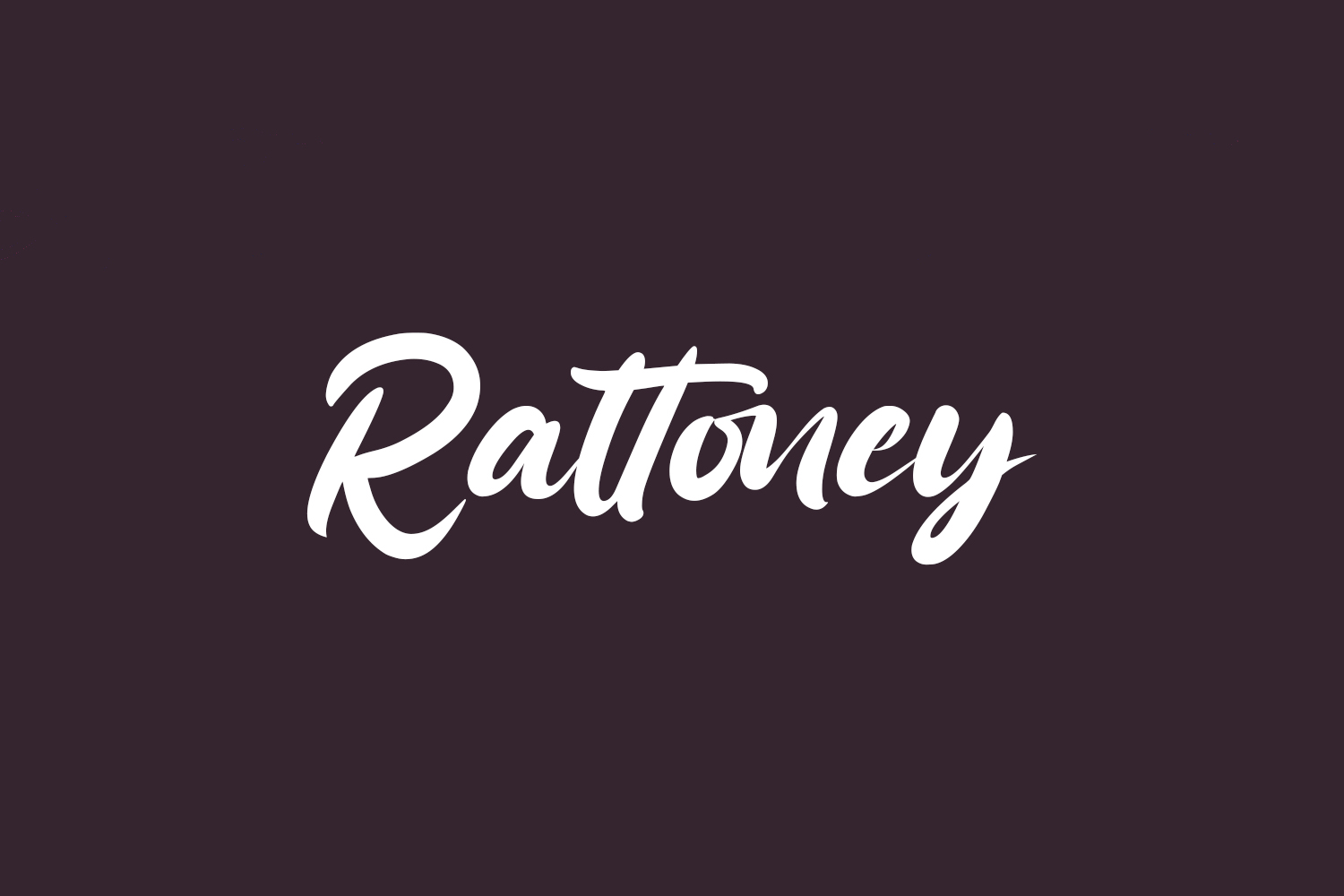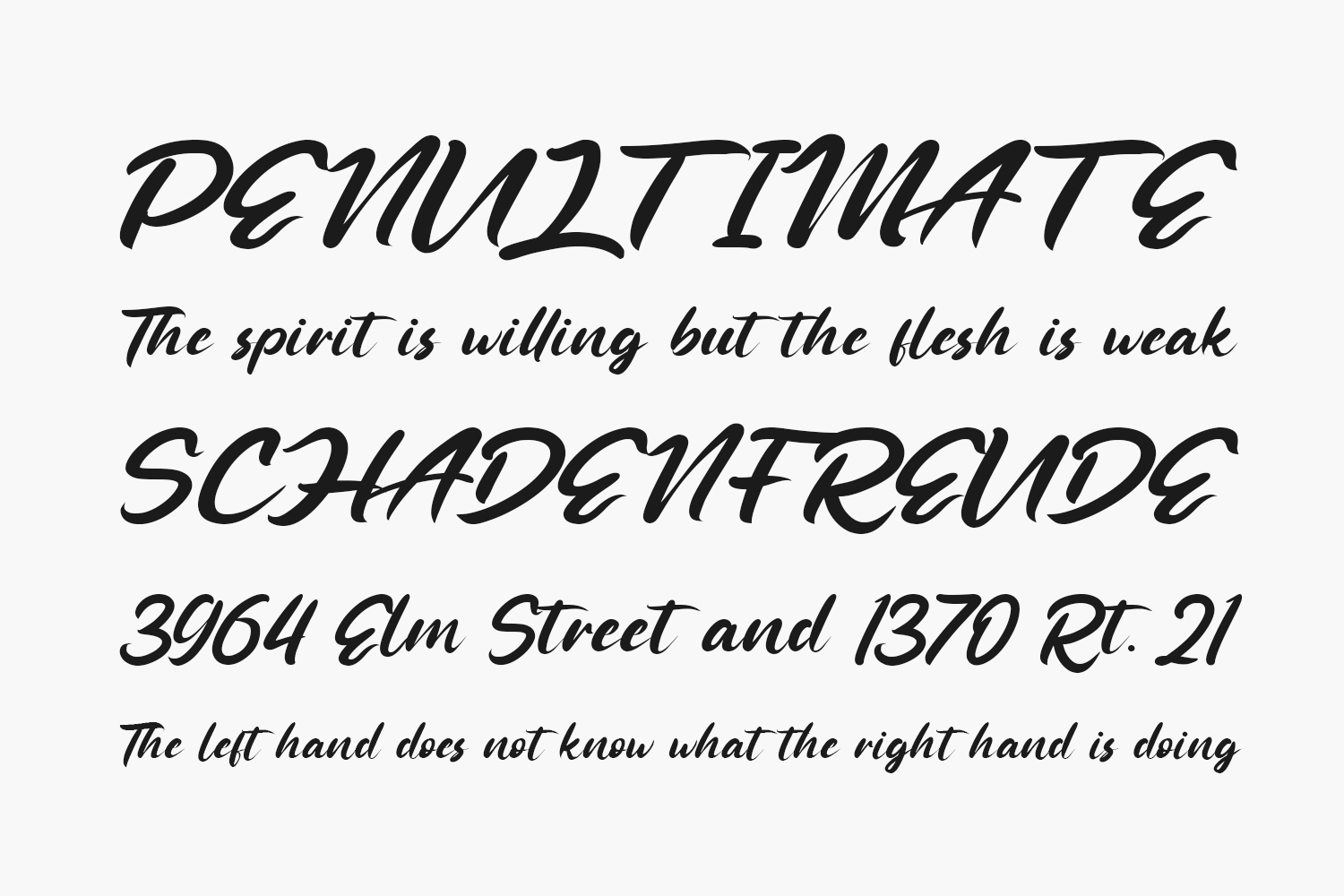
Rattoney Free Font is a gorgeous, cursive, and bold handwritten font, crafted to give your headlines and logotype projects a stylish touch. This font reads as strong, confident, and dynamic and can add tons of nostalgic character to your designs. Rattoney Free Font was designed by StringLabs and is free for personal use only. Please purchase the full version for commercial use.